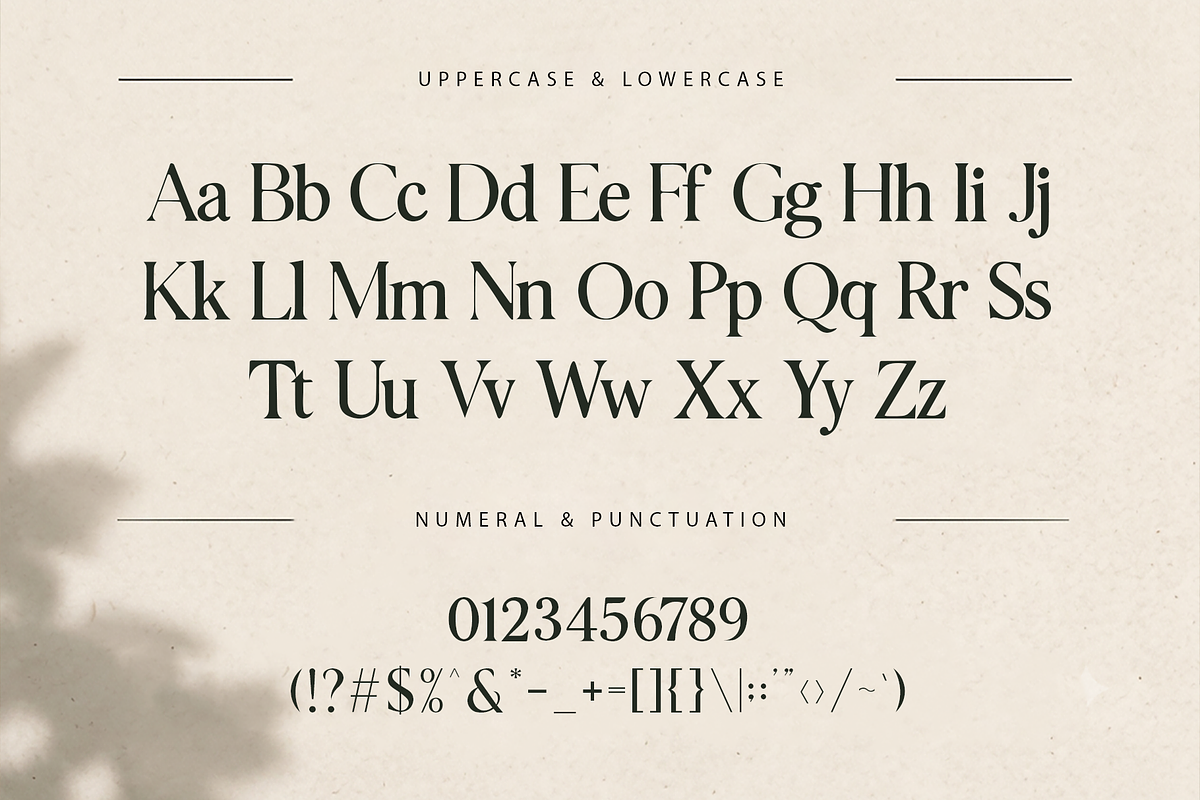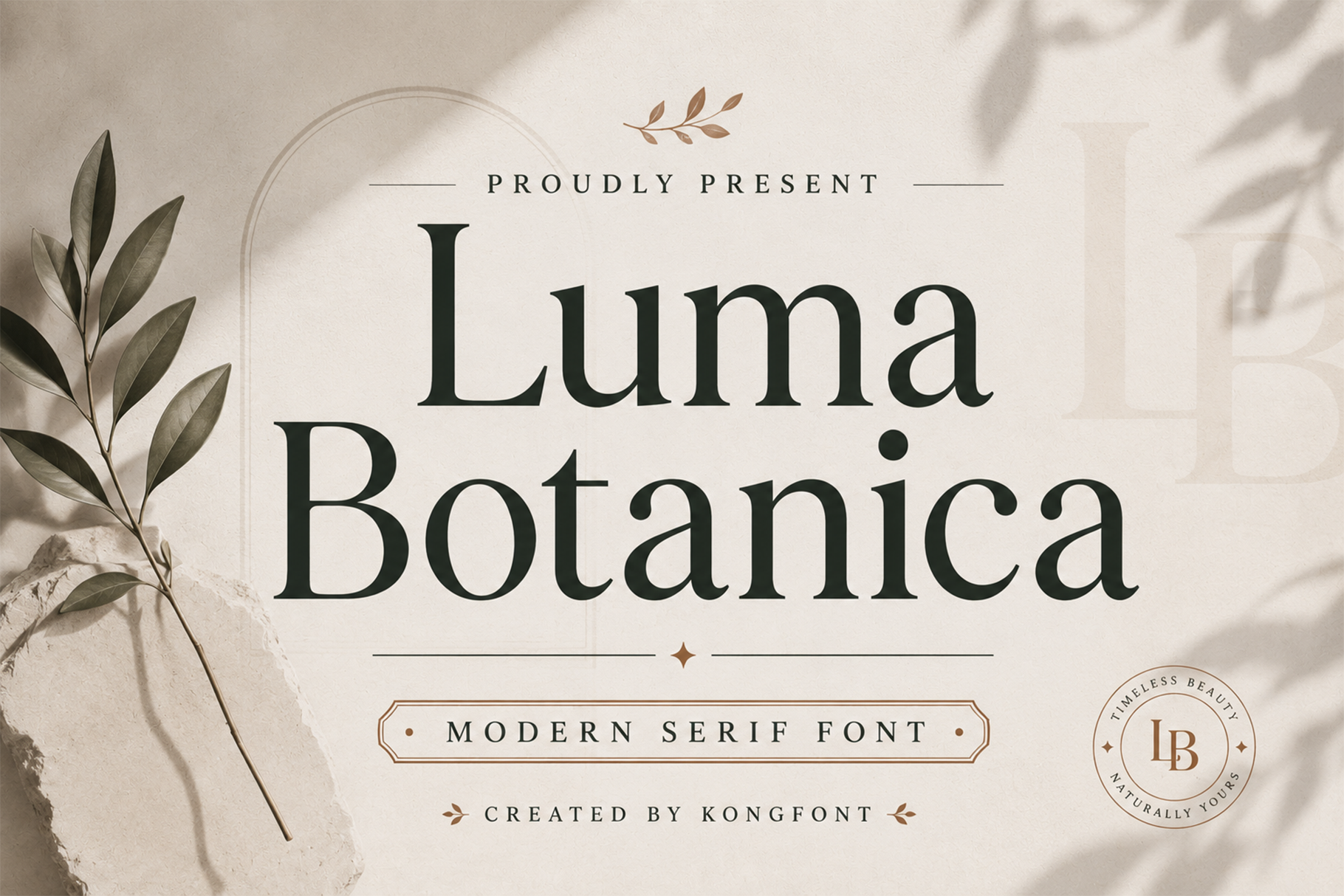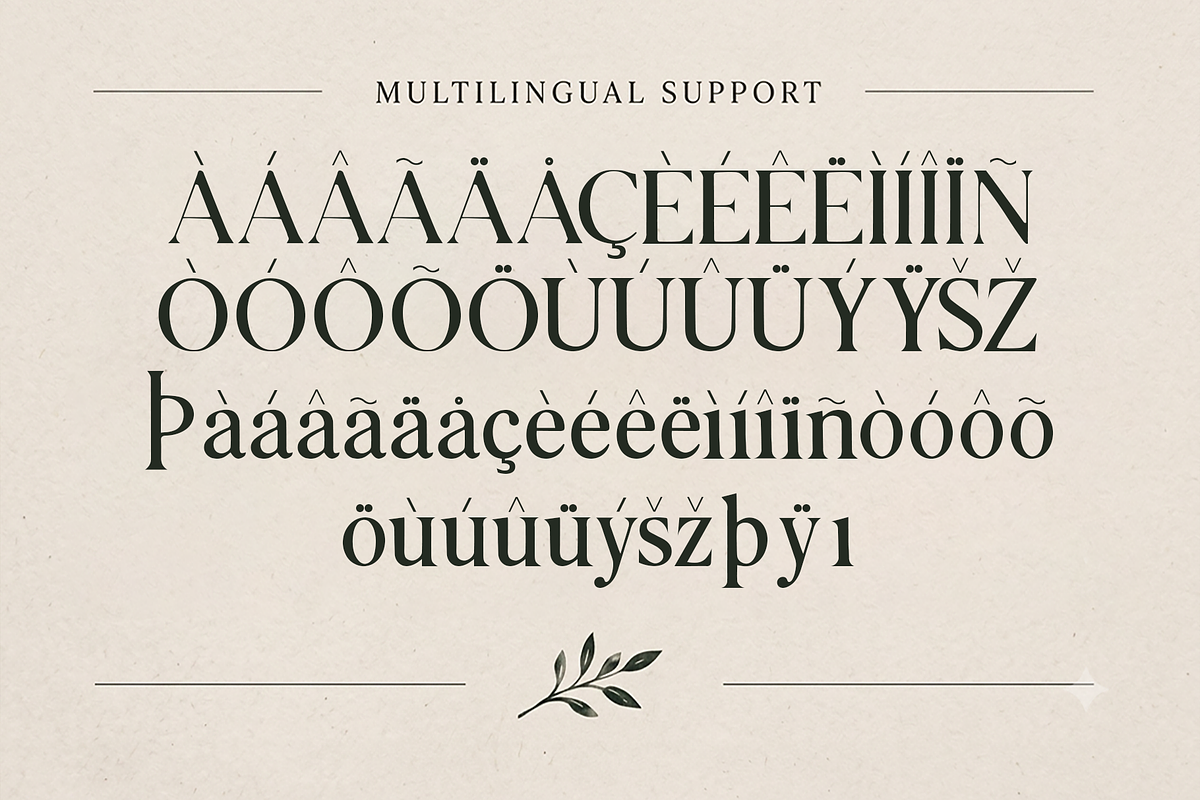
Luma Botanica - Modern Serif Font
Luma Botanica is a modern serif font that beautifully combines botanical inspired elegance with contemporary refinement. Featuring graceful serifs, organic curves, and balanced proportions, this typeface evokes a sense of natural beauty while maintaining a luxurious and modern aesthetic.
Designed for versatility, the font includes uppercase and lowercase letters, numerals, punctuation, and multilingual support, making it suitable for both print and digital applications. Whether you're crafting a premium brand identity or an elegant editorial layout, Luma Botanica delivers beauty and sophistication in every character.